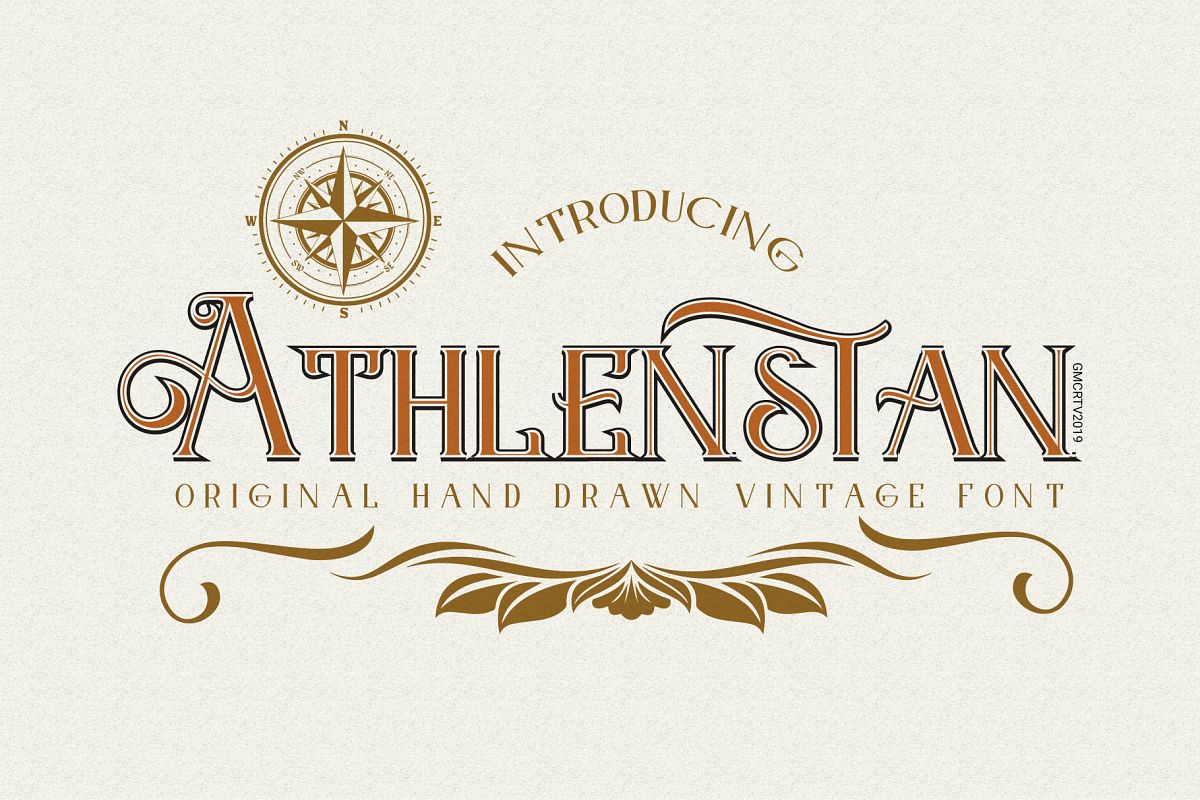
-- Retro / Elegant / Modern --Athlenstan is a Vintage black letter font. Inspired by a old English poster than i try to combine it with a modern concept with a victorian style touch. it's perfect for you to show your design or product in professional way.
USE Athlenstan works great in any branding, logos, magazines, films, poster, flyer, sign board.